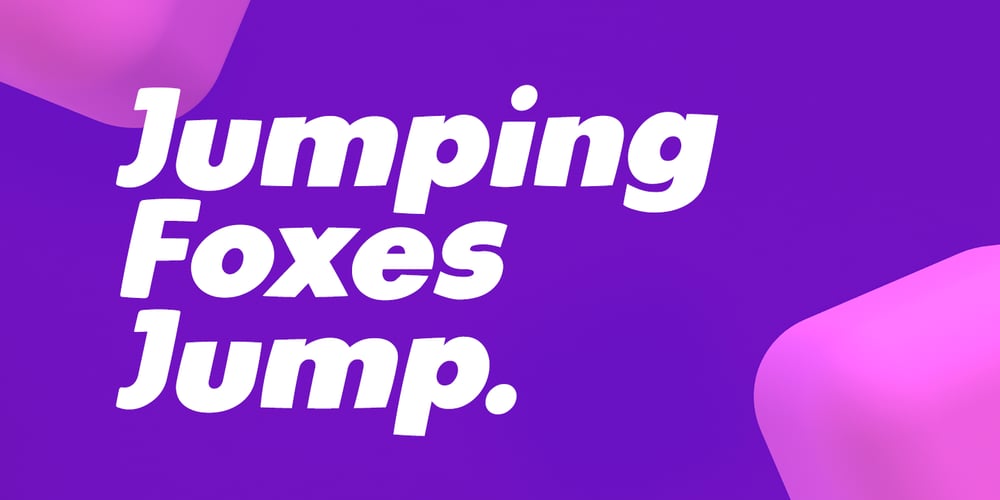
Lean Font Family was designed by Steven Whitfield and published by Ogle Studio. Lean contains 1 styles and family package options. Lean is a solid must-have for anyone’s font collection. With its plump weight and dynamic poise, Lean offers an eye-catching solution for any project. Handcrafted and informal, the style adds a real statement, whether it’s for a logo, video artwork, business card, or presentation.The impact of the uppercase characters, married with the gentle roundness of the lowercase strokes, present a unique result for titling, sure to get you noticed.Lean’s dynamic ‘lean’ makes strings come alive, giving a feeling of movement and excitement.The character set contains 190 glyphs, with latin and western language support.